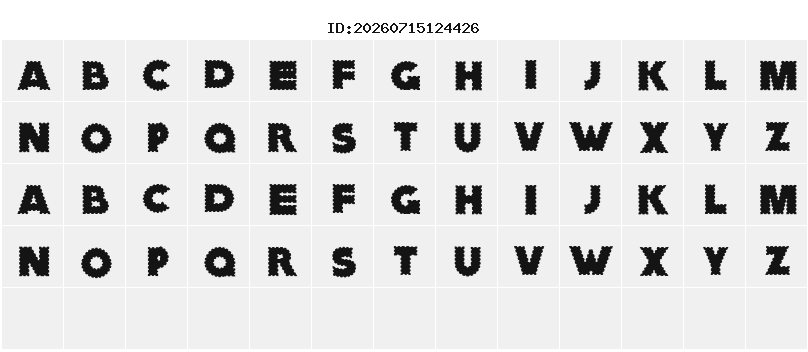
ZagzagGoosePimples Preview
• Font Name: ZagzagGoosePimples
• Full Font Name: ZagzagGoosePimples
About ZagzagGoosePimples.ttf
ZagzagGoosePimples.ttf is a modern, elegant sans-serif font designed for ultimate readability and visual harmony. Perfect for branding, headlines, web design, and print materials.